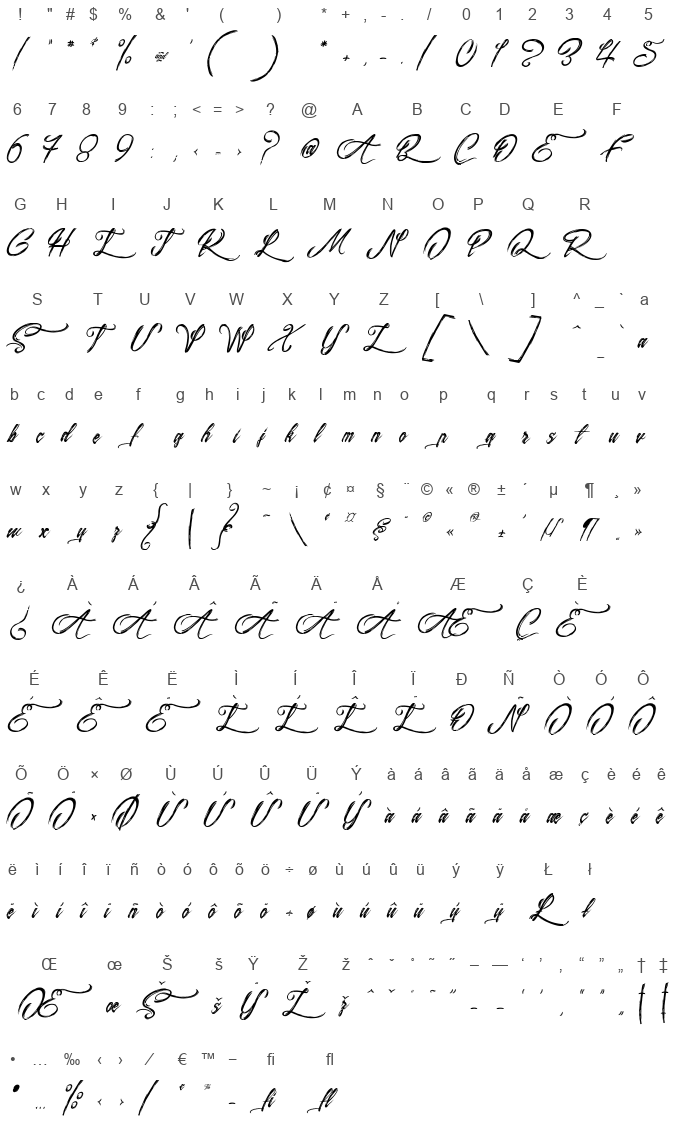
Oh, strap in, because we're about to ride the waves and catch the wind with the "Surfing & Kiteboarding" font by Cataleya Butcher. Picture this: You're at the beach, the sun is setting, painting the sky in shades of orange and pink, and there's this cool vibe in the air. That's the essence of Surfing & Kiteboarding, except it's not just a feeling, it's a font that you can actually touch, well, sort of, if you consider clicking and typing as touching.
Now, imagine the curves of a wave; they're smooth, mesmerizing, and appear effortless. That fluid motion is embodied in each character of the font. It's like Cataleya Butcher sat at the drafting table, pencil poised, and just as a giant wave was about to crash down, froze time, and said, "Yep, that's it. That's the vibe." Each letter flows into the next with a casual grace that makes you think it was just as fun to create as it is to look at.
Don't get it twisted though, "Surfing & Kiteboarding" is not your average laid-back beach font. Oh no, it packs a punch like the gust of wind that propels a kiteboarder across the ocean. It's dynamic, full of energy, and yet there's this underlying harmony that ties it all together, much like a group of kiteboarders seamlessly gliding and crisscrossing paths without colliding.
In essence, the "Surfing & Kiteboarding" font by Cataleya Butcher is the embodiment of freedom and adventure, seasoned with a dash of chill beach vibes and the exhilaration of catching the perfect wave or the strongest wind. It's versatile, fun, and serves as a reminder not to take things too seriously. Whether you're designing a logo, a poster for a beach festival, or just typing up an invitation for a casual beach bonfire, this font adds that special touch of magic, transforming the mundane into something extraordinary.
Surfing & Kiteboarding